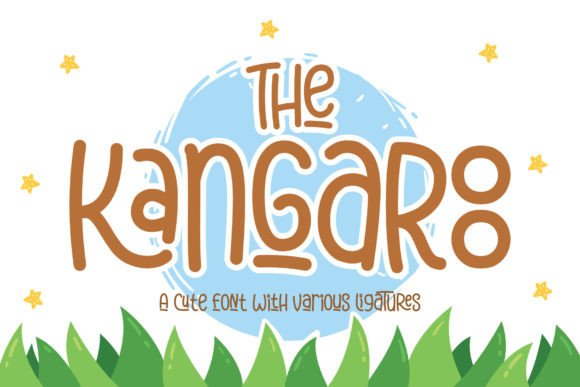
Introducing The Kangaroo Font - A Whimsical Adventure for Your Designs!
Prepare to be captivated by The Kangaroo Font, an enchanting display font that will infuse your designs with a delightful dose of fun and playfulness. Crafted by the skilled hands of Madatype Studio, this remarkable font family is the perfect choice for unleashing your creativity across a myriad of design projects.
Imagine the joy and charm that The Kangaroo Font will bring to your t-shirt designs, making them stand out with a unique and eye-catching appeal. Elevate your brand logo with a touch of whimsy that will leave a lasting impression. Transform your corporate font into a reflection of your playful spirit, adding a spark of cheerfulness to your professional communications.
Fashion branding takes on a whole new dimension with The Kangaroo Font, as its playful curves and cheerful strokes evoke a sense of style and sophistication that is simply irresistible. And for those seeking a font that radiates cuteness and charm, look no further than The Kangaroo Font.
Its adorable and cheerful design will make your designs shine with an irresistible appeal, capturing the hearts of all who lay their eyes upon it. Whether you're embarking on a kids' project or a project aimed at adults, The Kangaroo Font has the versatility to deliver exceptional results.